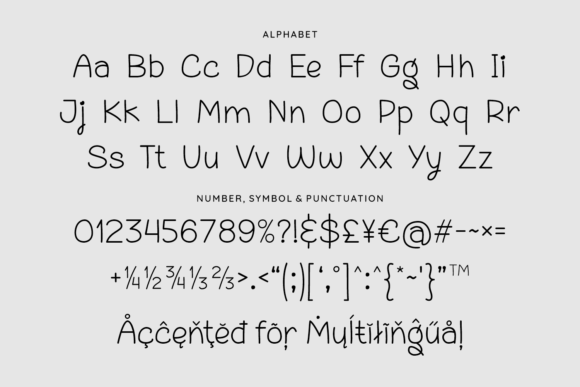
Gina Ragesta Font: A Beautiful Minimalist Handwritten Font for Creative Projects
In the world of typography, a good font can make all the difference in the success of a creative project. For designers, crafters, and DIY enthusiasts, finding the perfect font can be a daunting task. However, if you’re looking for a beautiful, minimalist, and handwritten font that can add a touch of elegance and friendliness to your project, look no further than the Gina Ragesta Font.
What is Gina Ragesta Font?
Gina Ragesta is a stunning handwritten font that is both cute and friendly. Its minimalist design makes it versatile and suitable for a wide range of creative projects. Whether you’re working on a text paragraph, business card, quote, website, printable, or any other project, this font is sure to impress.
Key Features of Gina Ragesta Font
- Minimalist Design: Gina Ragesta boasts a clean and simple design that makes it easy to read and use in various contexts.
- Handwritten Style: The font’s handwritten style adds a personal touch to any project, making it perfect for those who want to add a bit of warmth and personality.
- Cute and Friendly: The font’s playful and friendly vibe makes it ideal for projects that require a lighthearted and approachable tone.
- Versatile: Gina Ragesta can be used for a wide range of projects, from text paragraphs and business cards to quotes, websites, and printables.
Who Can Benefit from Gina Ragesta Font?
Gina Ragesta Font is perfect for:
- Graphic Designers: Whether you’re working on a client’s project or building your own brand, this font is a great addition to your toolkit.
- Crafters: If you’re into crafting, scrapbooking, or DIY projects, Gina Ragesta can add a personal touch to your creations.
- Web Designers: This font is perfect for websites that require a friendly and approachable tone, such as blogs, portfolios, or e-commerce sites.
- Small Business Owners: If you’re looking for a font that can help you establish a strong brand identity, Gina Ragesta is an excellent choice.
- Use it for Headings and Body Text: Gina Ragesta works well for both headings and body text, making it a versatile font for various applications.
In conclusion, Gina Ragesta Font is a beautiful, minimalist, and handwritten font that can elevate any creative project. Its cute and friendly vibe makes it perfect for designers, crafters, and DIY enthusiasts who want to add a personal touch to their work. With its versatility and ease of use, Gina Ragesta is an excellent addition to any toolkit.